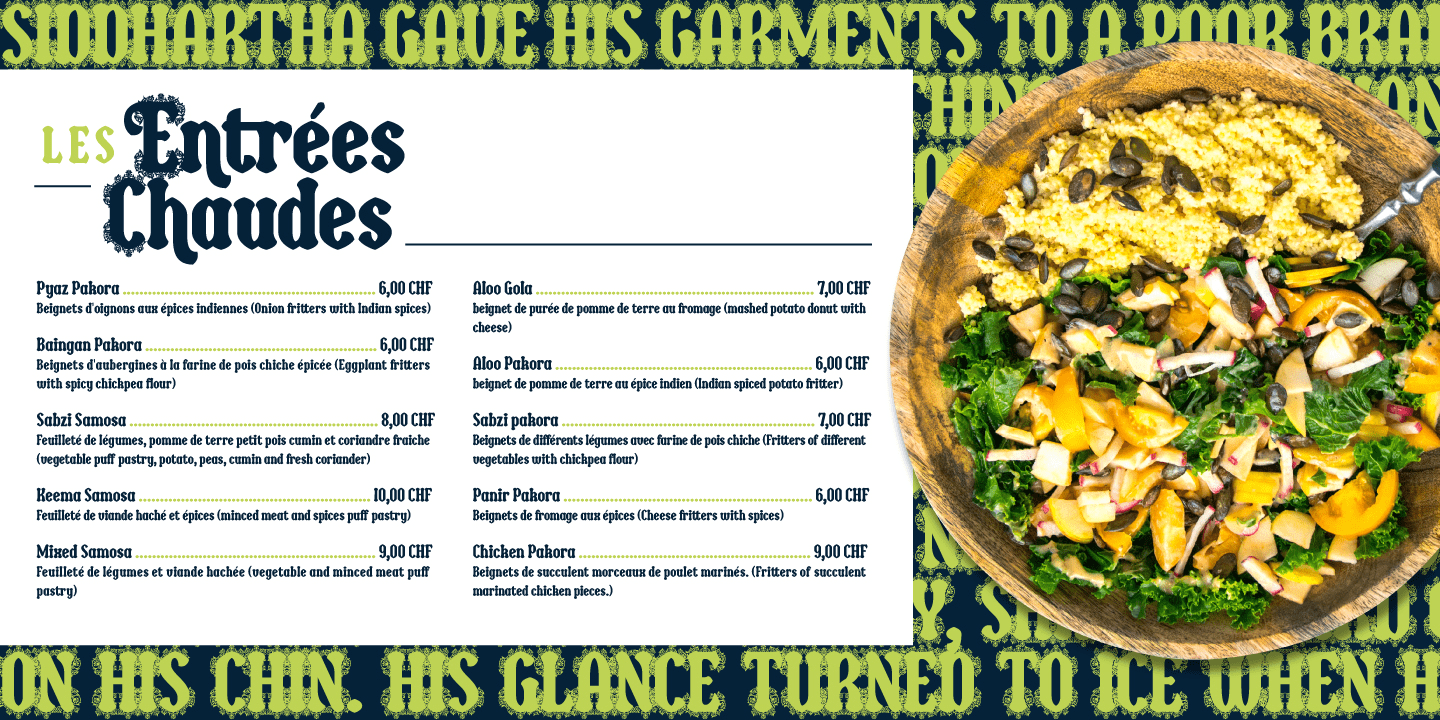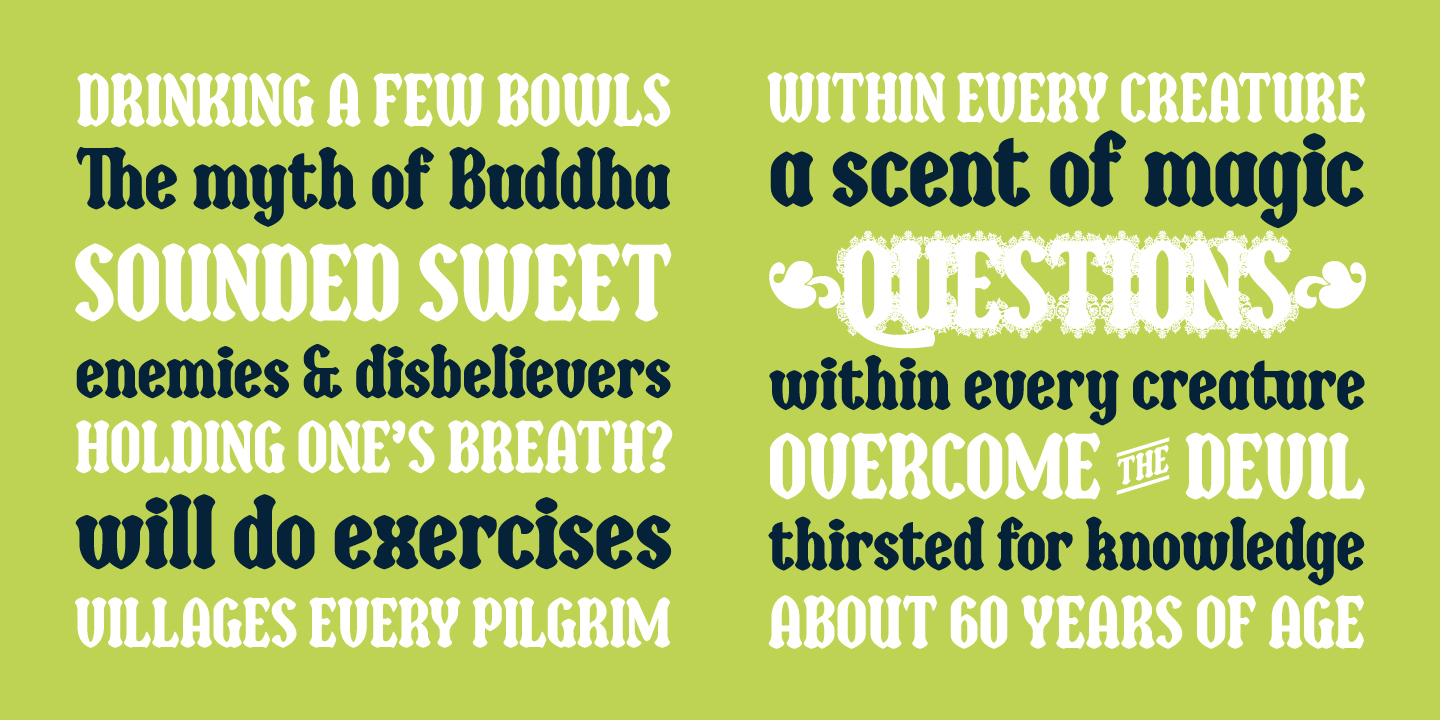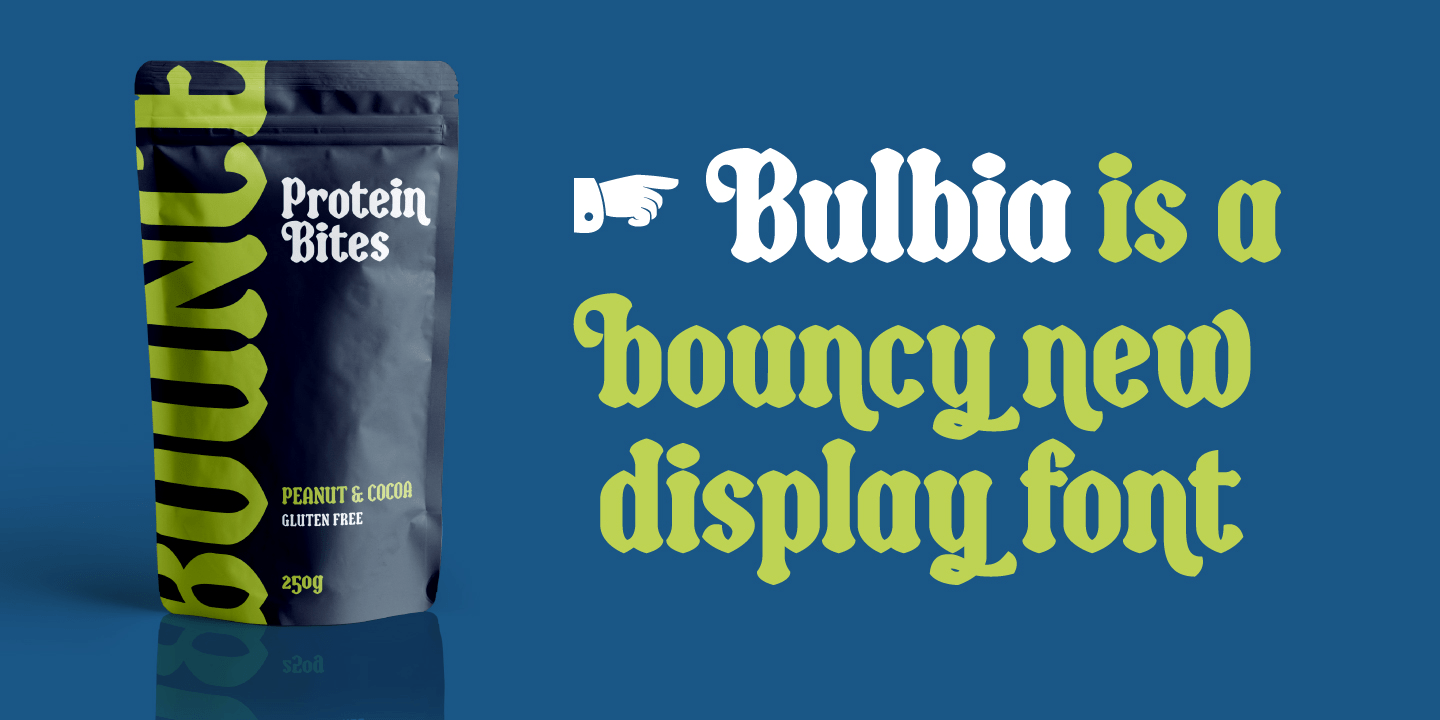
About Bulbia
Bulbia is a single weight, display typeface inspired by the teardrop shape featured in some middle eastern design. With a bold stroke and high contrast, this font conveys a strong, unique voice that can be further enhanced through the use of it\’s extensive…